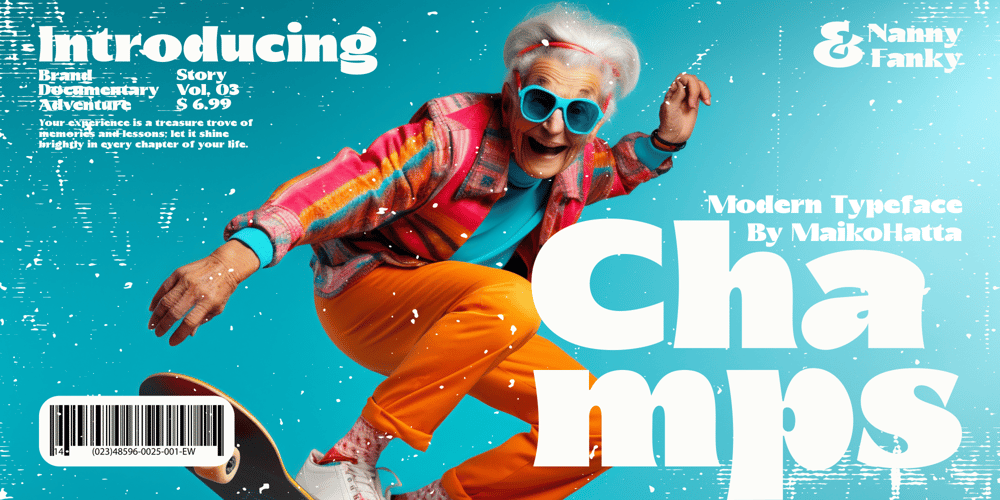
Champs Font Family was designed by Gilang Ternadho and published by Maikohatta. Champs contains 2 styles and family package options. Introducing our new product Champs – Modern Sans Serif TypefaceChamp Modern Font is a bold and authentic display font. The font is suitable for any branding project like logo, Template Design, esport, and many more. outstanding in a wide range of contexts.